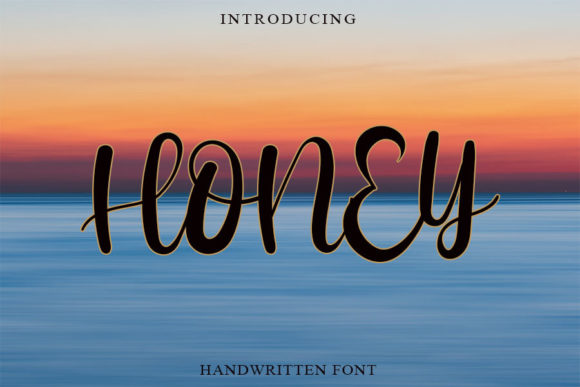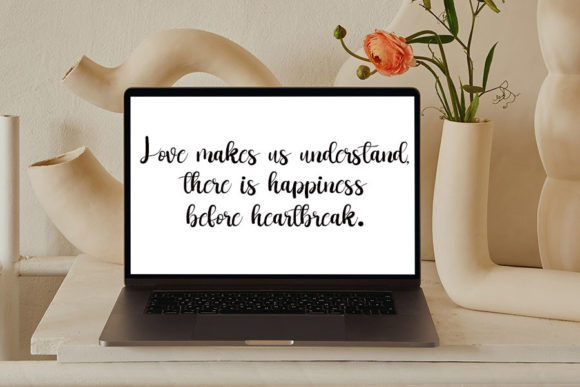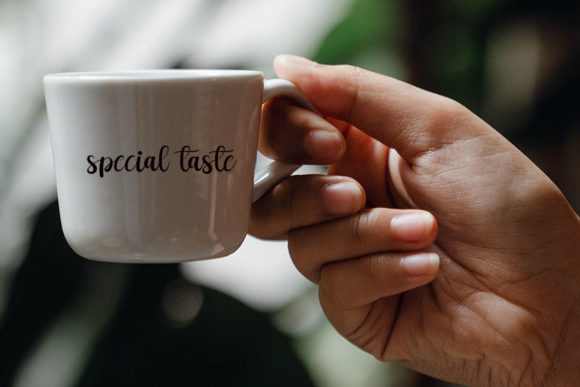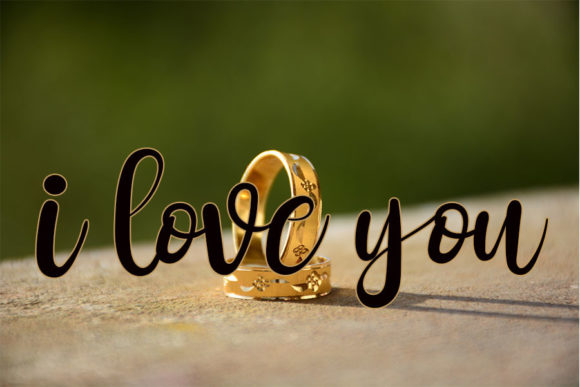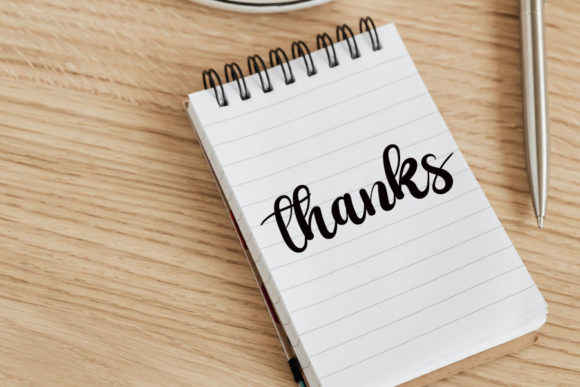
About Honey Font
Honey is a lovely and timeless handwritten font. It is the best choice for creating eye-catching logos, branding designs, and quotes. Every letter has a unique and beautiful touch, which will make your design come alive!